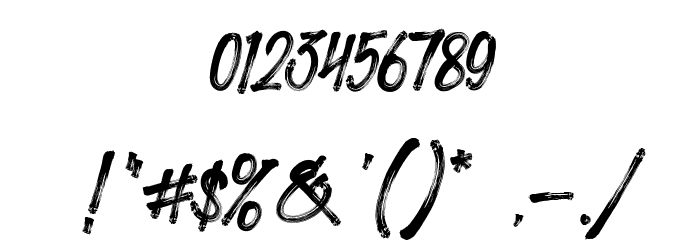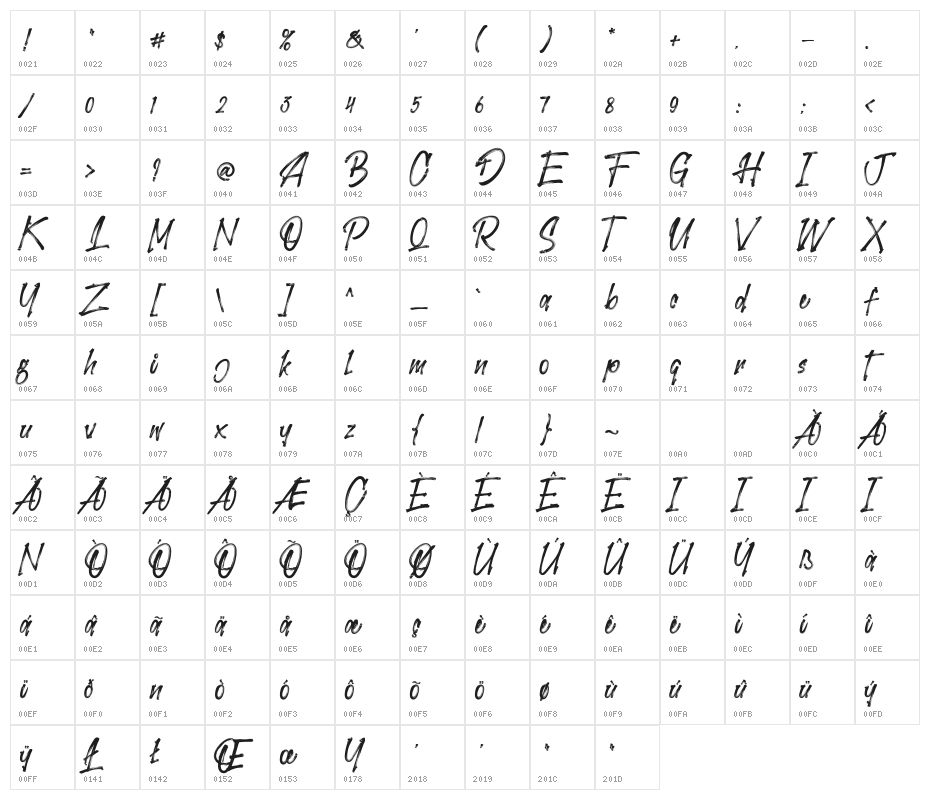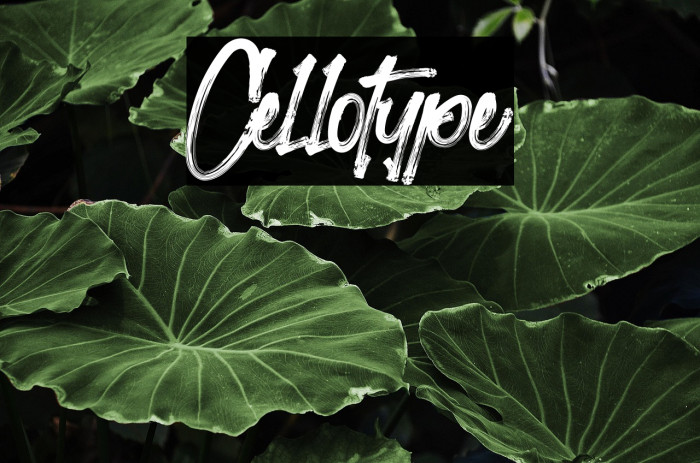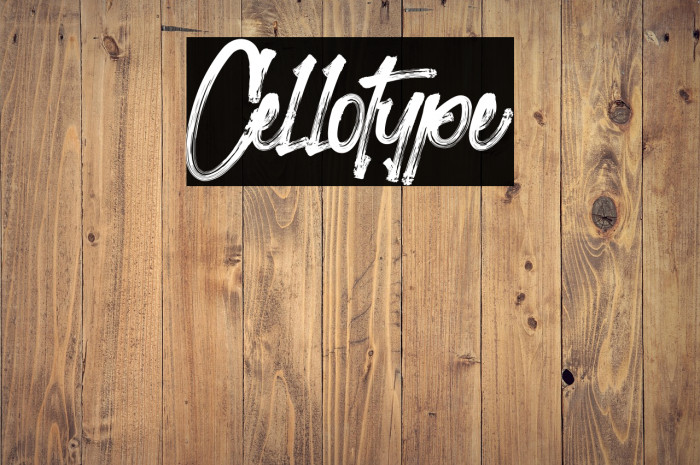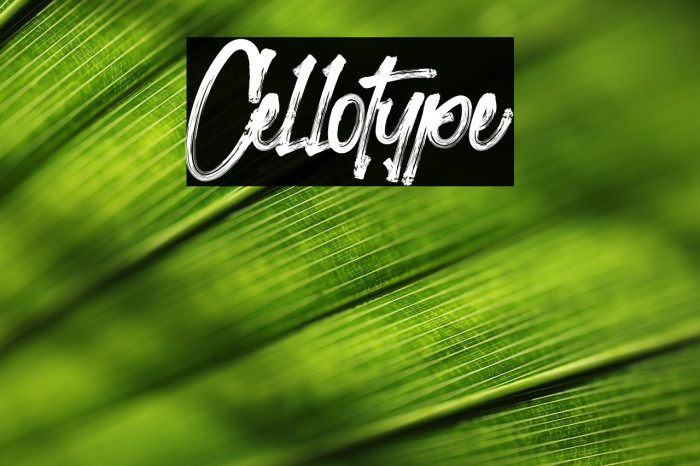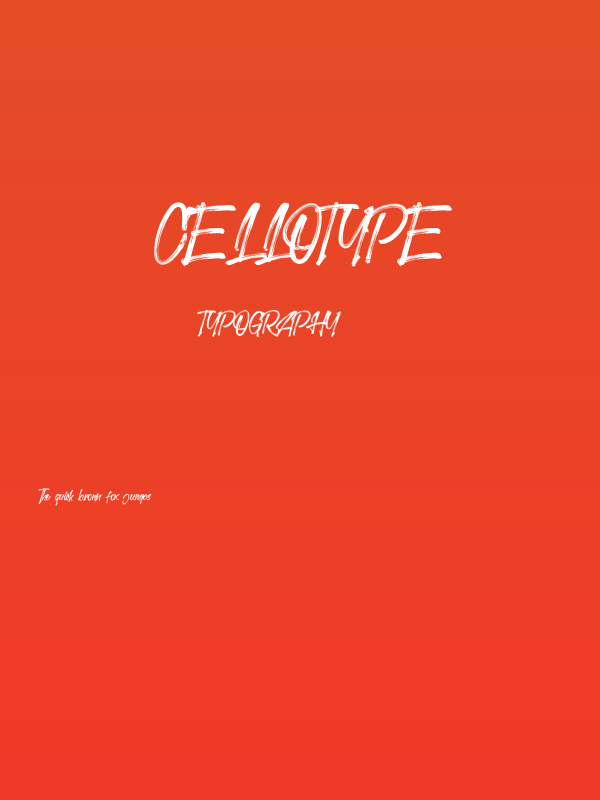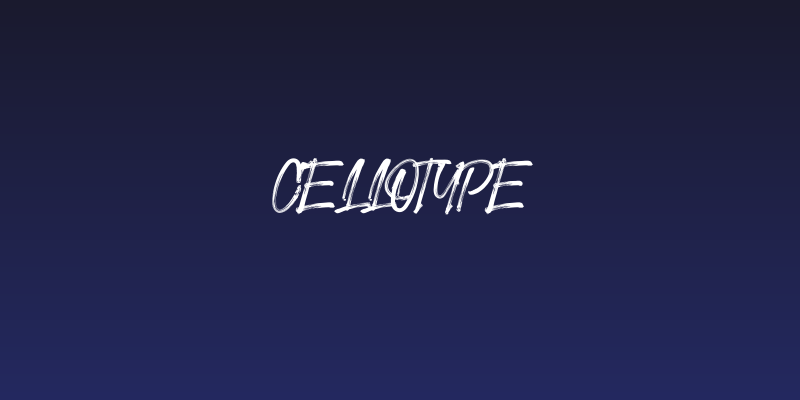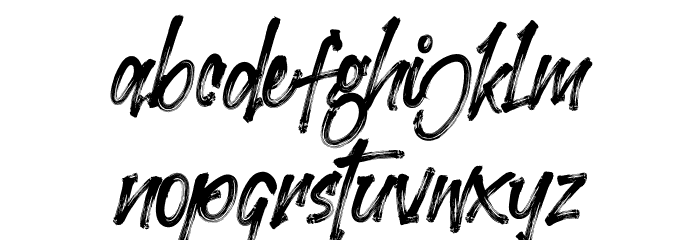
Cellotype Font
Cellotype Description
This font features a dynamic and energetic brush script style, characterized by its bold and expressive strokes. The letters have a hand-drawn appearance, with varying thickness that adds a sense of movement and flair. The uppercase letters are particularly striking, with sweeping curves and sharp angles that create a sense of urgency and excitement. The lowercase letters maintain this lively aesthetic, with a more compact form that complements the uppercase. Numbers and special characters are equally bold, ensuring consistency across all elements. The overall look is both artistic and modern, making it suitable for creative and eye-catching designs.